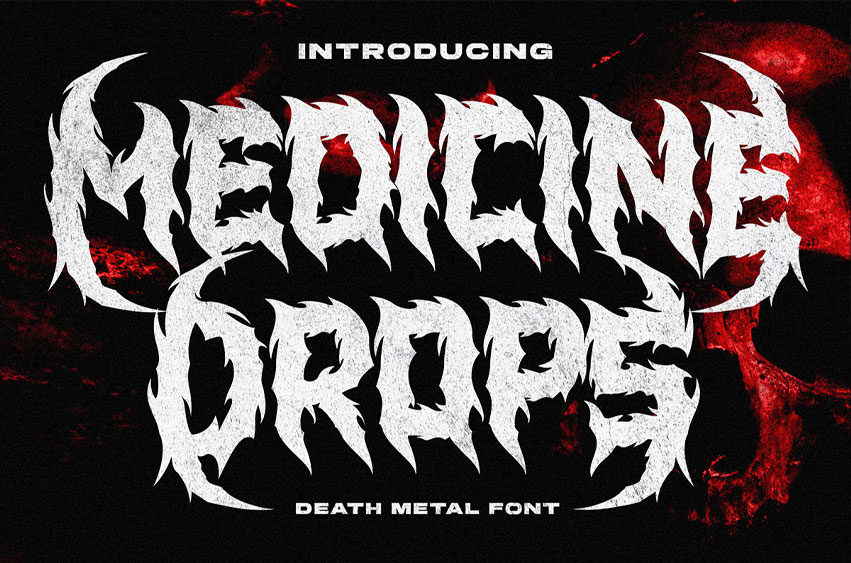
Medicine Drops Font with a death metal theme. Be an alternative to make logos, or anything with the nuances of death metal music. This font is perfect for a logotype death metal band, a logotype death metal brand, a product, merchandise death metal band, death metal band covers, rock events, rock posters, rock magazine covers, branding, product design, labels, and other creative projects.